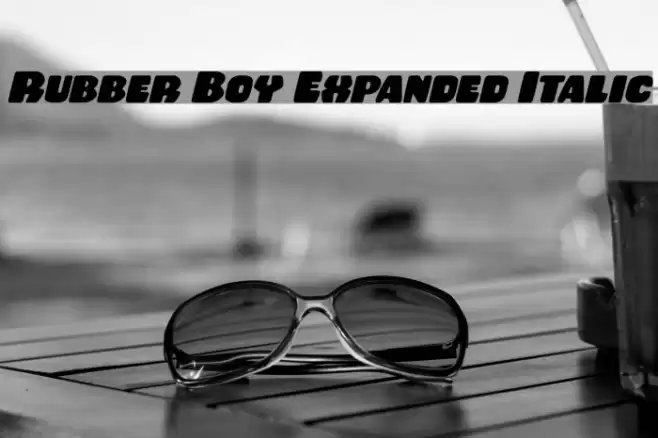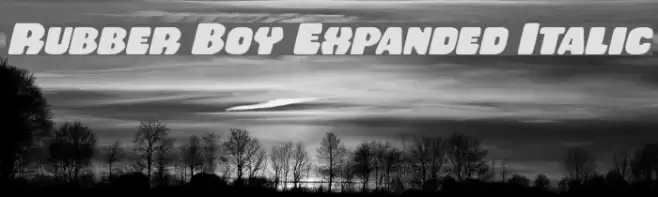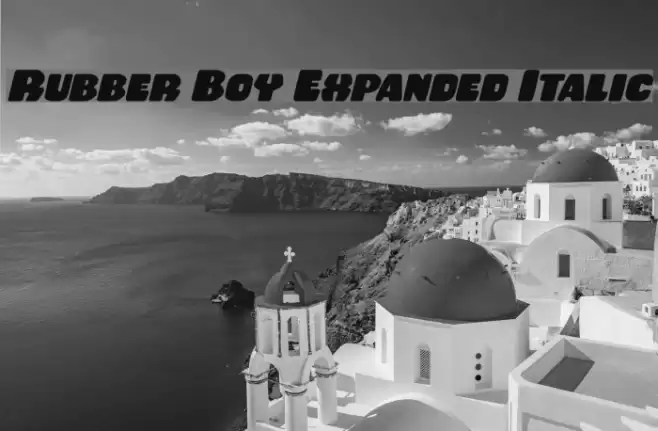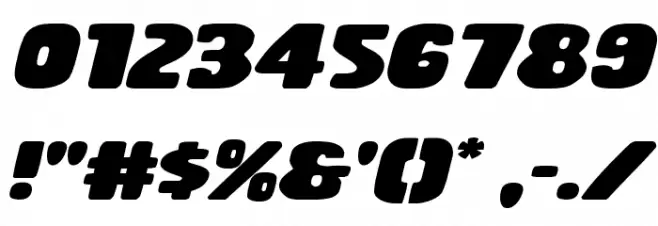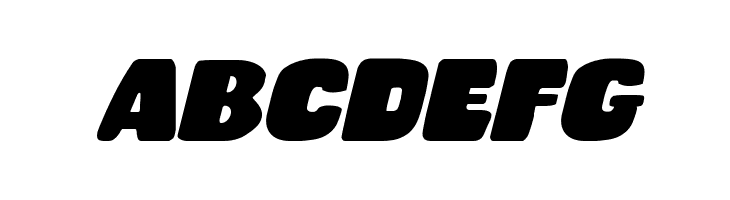
Rubber Boy Expanded Italic Font
Rubber Boy Expanded Italic Description
This font features a bold and dynamic style with an expanded and italicized appearance. The characters are robust and rounded, giving a playful yet impactful look. The strokes are thick and consistent, providing a strong visual presence. The italic slant adds a sense of motion and energy, making it suitable for attention-grabbing designs. The expanded width of the characters enhances readability while maintaining a unique and modern aesthetic. This font is ideal for projects that require a bold statement and a touch of creativity.
A bold, expanded, and italicized font with a playful and dynamic style from Kids fonts.
- Proposed Projects: Ideal for posters, headlines, branding, and any design needing a bold and energetic typeface.